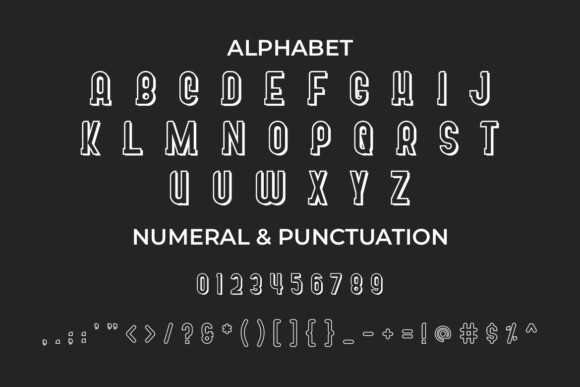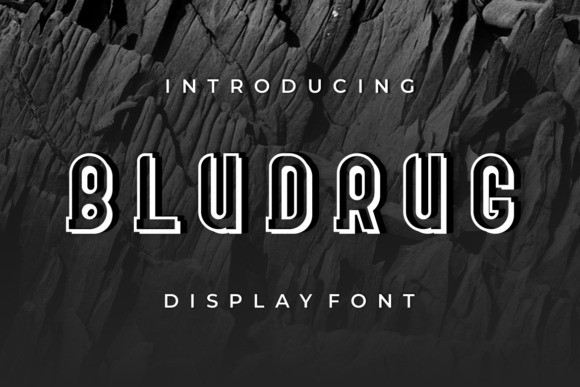
Bludrug Font
Bludrug Font is a bold and authentic display font. The font is suitable for any branding project like logo, t-shirt printing, esports, and many more. It looks outstanding in a wide range of contexts.